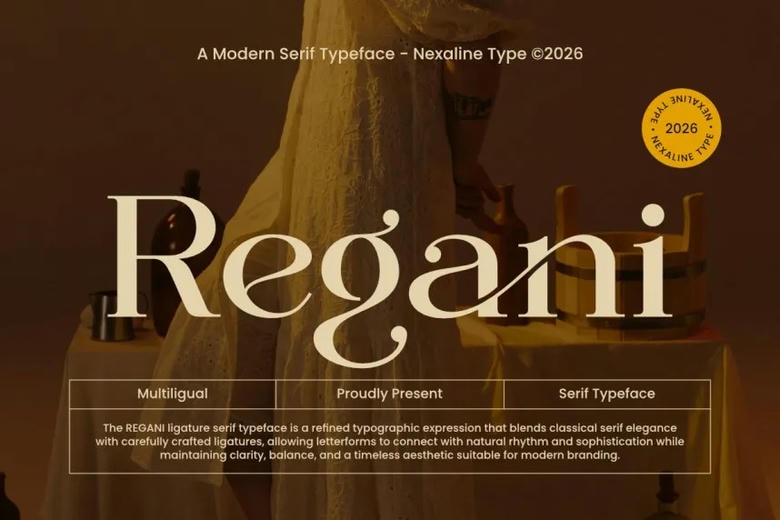
Regani Font
Regani is a modern serif typeface that blends classic style with a fresh feel. It is designed to show confidence, grace, and simple beauty. With high-contrast strokes, smooth curves, and detailed ligatures, it stands out in high-end design projects.
Regani Serif Font